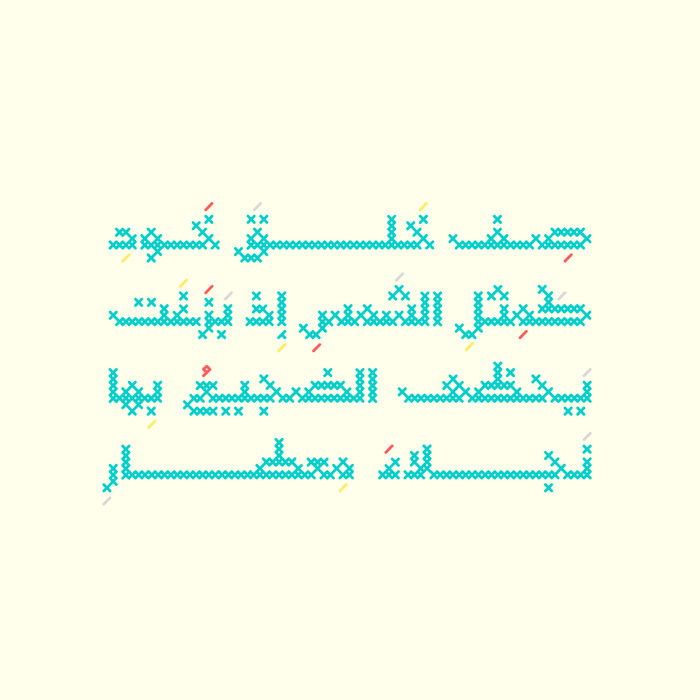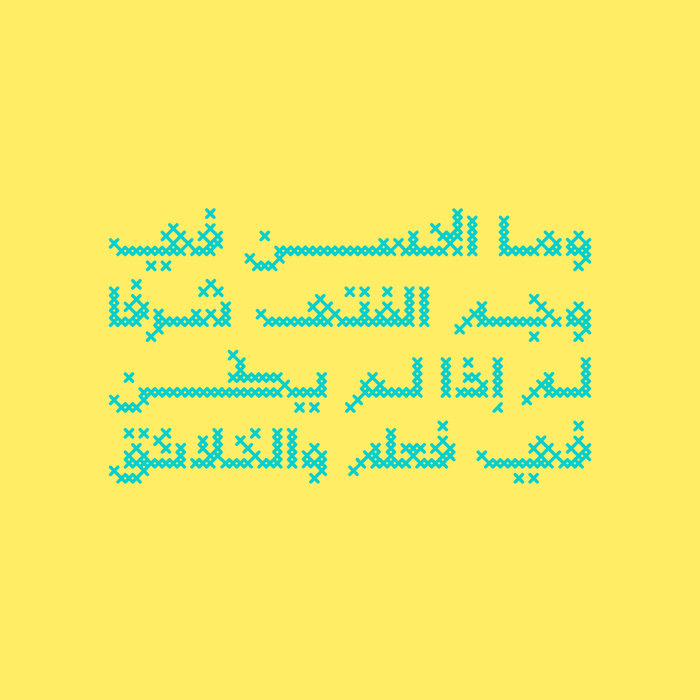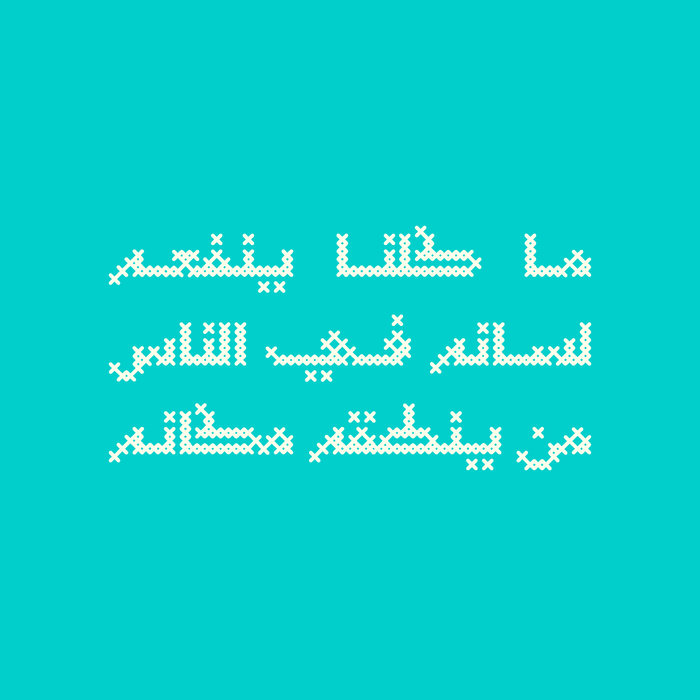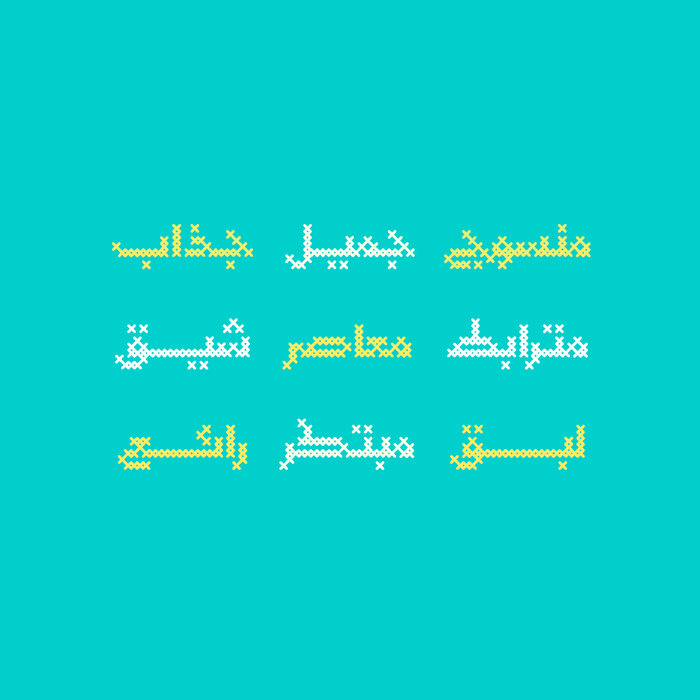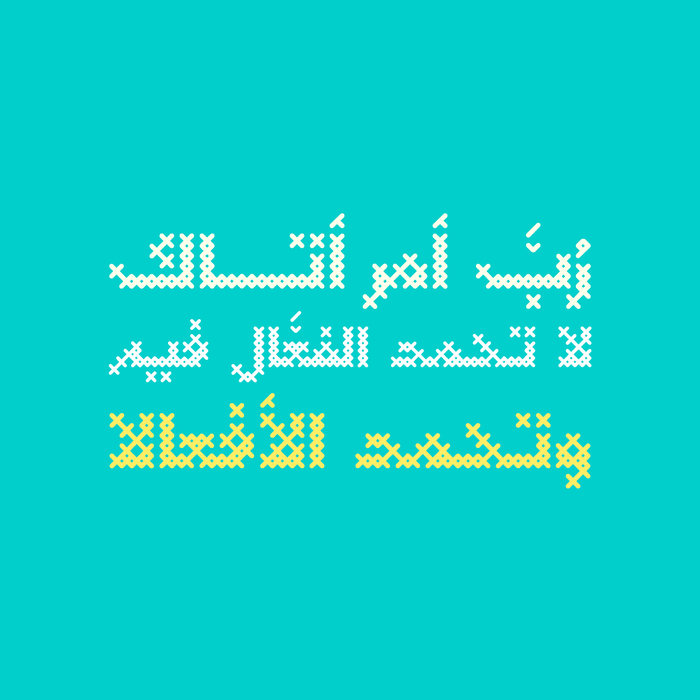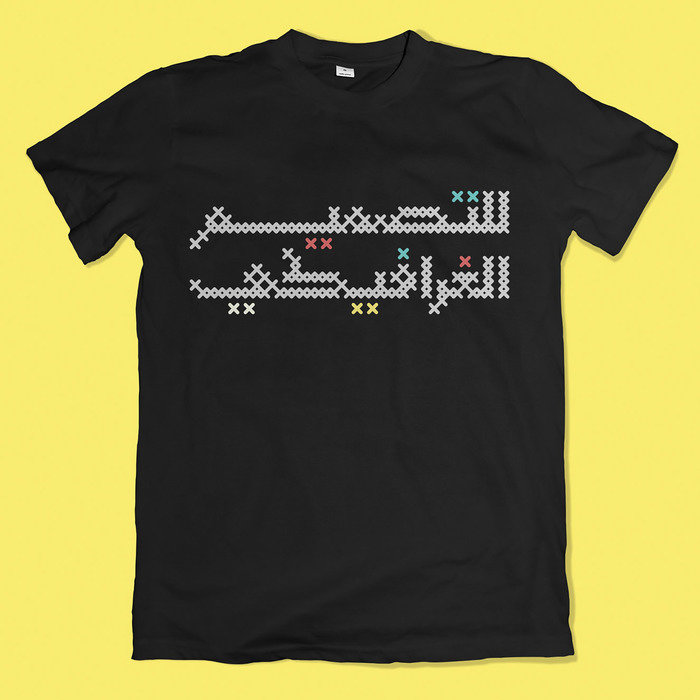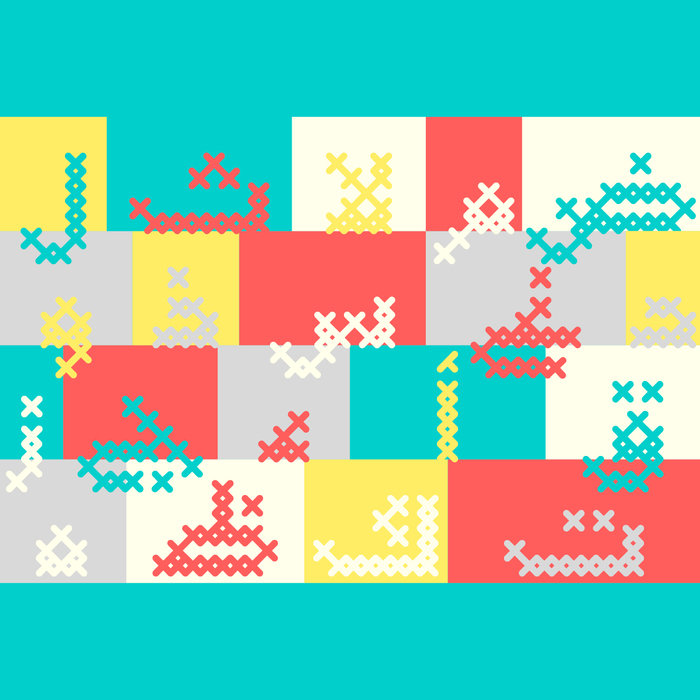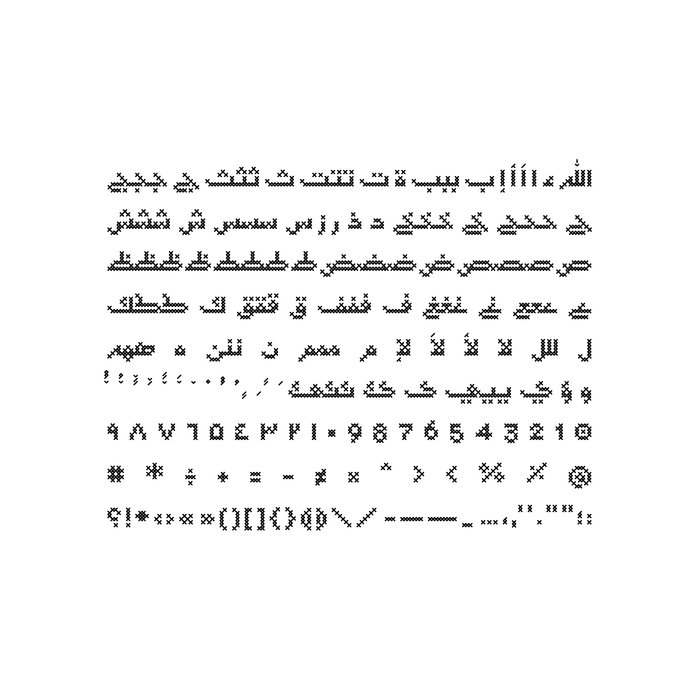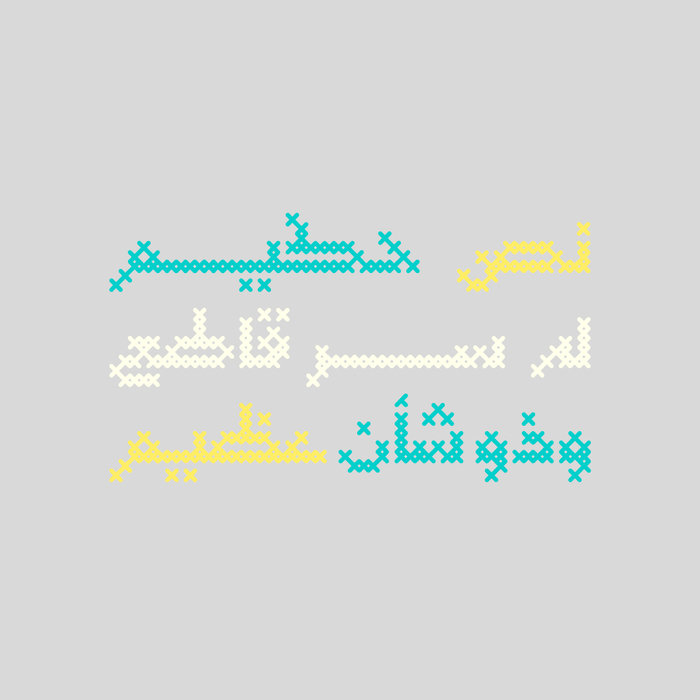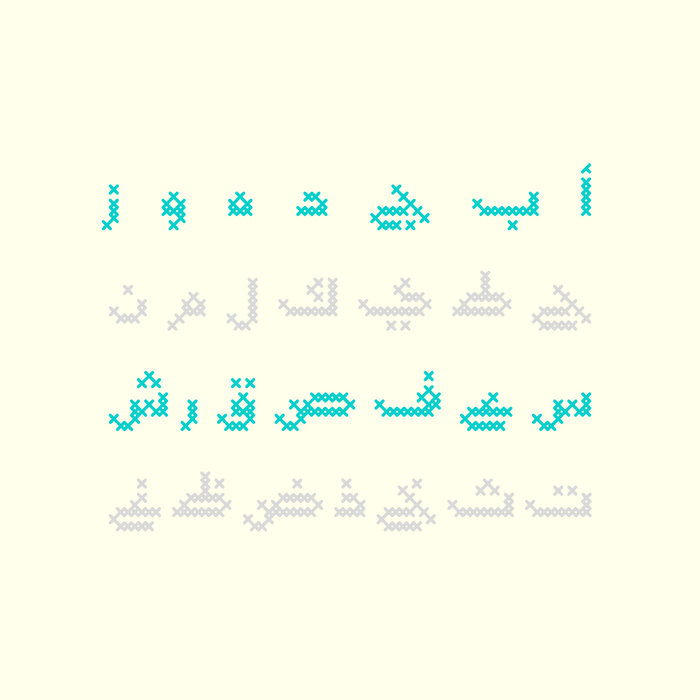
Maaqoud - Arabic Font
Maaqoud (the Arabic for 'Interlocked') is an Arabic display font that features distinctive letterform design inspired by the cross-stitch embroidery. The font suits various range of creative projects including web, print and Mobile applications. Maaqoud supports both Windows and Mac.